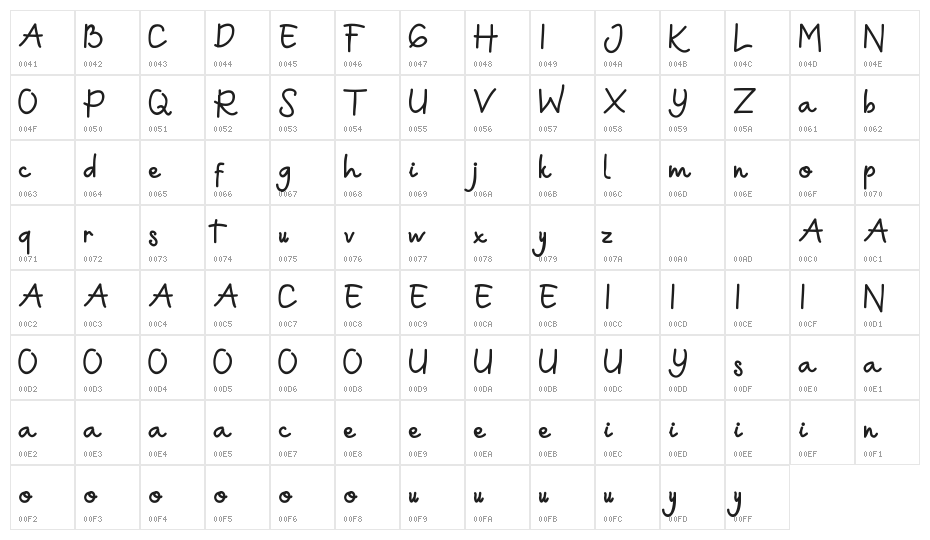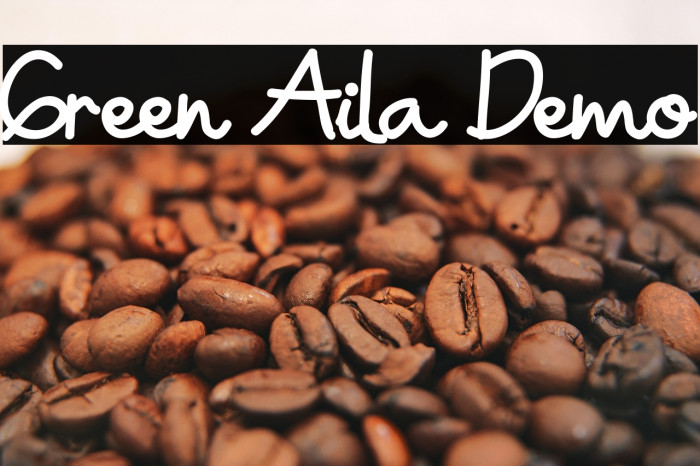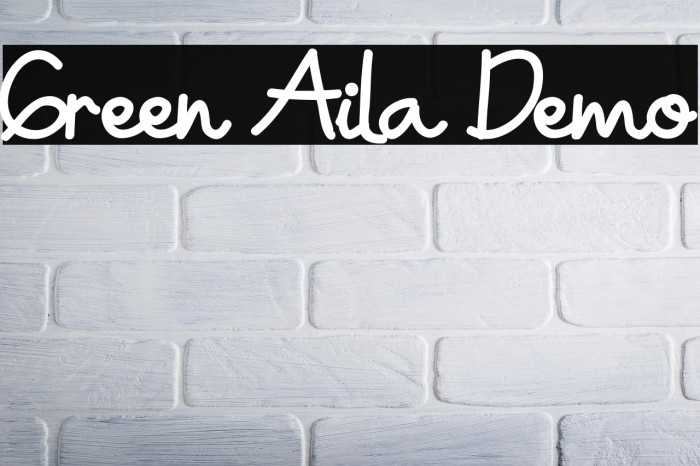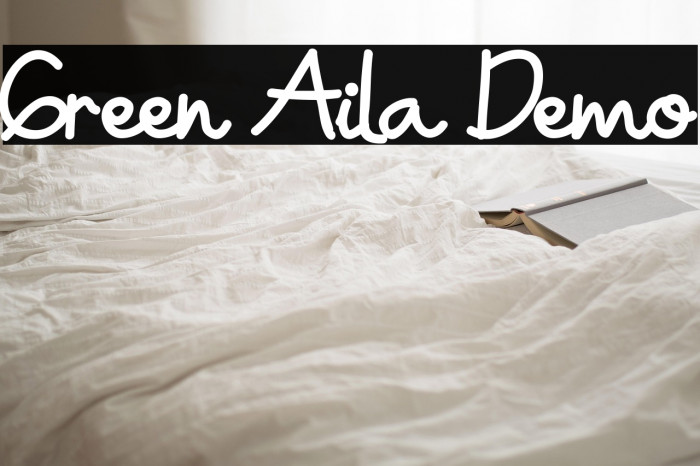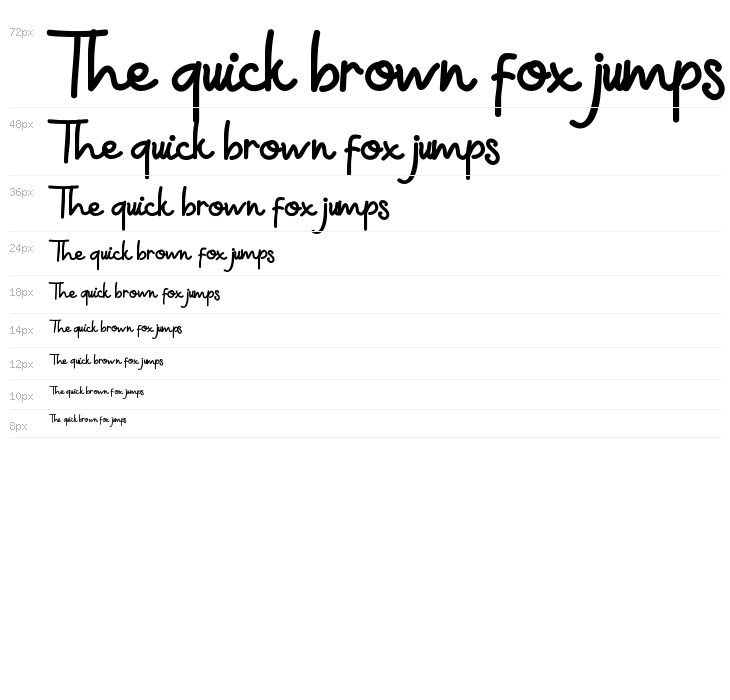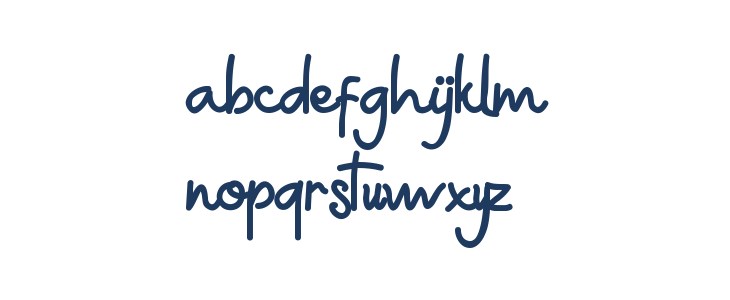
Green Aila Demo Font
This font features a playful and casual handwritten style, characterized by its smooth, flowing lines and slightly irregular letterforms. The uppercase letters are bold and prominent, while the lowercase letters maintain a consistent flow, adding to the font's informal charm. The characters are slightly condensed, with a moderate contrast in stroke thickness, giving it a lively and dynamic appearance. The font's unique style makes it suitable for projects that require a personal touch, such as invitations, greeting cards, or creative branding.